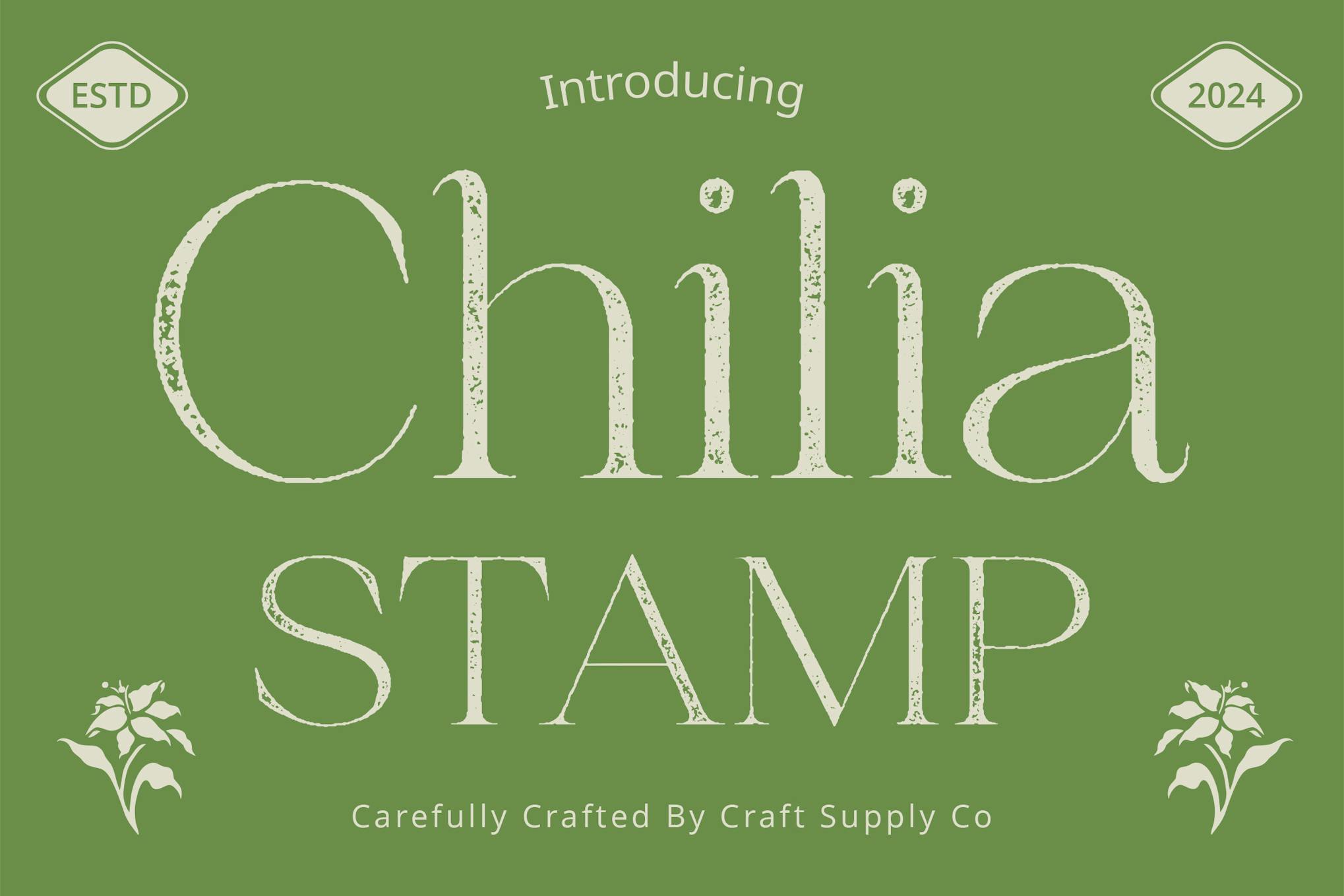
Chilia Stamp Font
The Chilia Stamp Font is perfect for vintage packaging design, rubber stamp effects, retro postal designs, distressed branding, industrial labeling, grunge poster artwork, weathered signage, and authentic stamp-style logos.
What makes Chilia Stamp Font so exciting is its authentic replication of traditional rubber stamp aesthetics that brings genuine industrial character and vintage appeal to modern design projects. This remarkable typeface captures the distinctive imperfections and ink variations found in real rubber stamp impressions, featuring uneven edges, natural wear patterns, and organic texture variations that create immediate visual authenticity. The font's carefully crafted distressed elements tell a story of use and history, making it perfect for brands that want to convey reliability, craftsmanship, and time-tested quality. Its distinctive stamp-like appearance instantly adds credibility and industrial charm to any design, transforming ordinary text into compelling visual communications that feel both authoritative and approachably human.
The Chilia Stamp Font family includes comprehensive variations that capture different aspects of stamp typography and wear patterns. The collection typically features multiple distress levels from lightly worn to heavily weathered, each maintaining the distinctive stamp characteristics. Many versions include alternative characters with varied ink coverage effects, decorative border elements inspired by postal design, and extended character sets supporting international applications for global branding and packaging projects.
The font's remarkable versatility works beautifully across both digital and print applications, from website headers to product packaging labels. Its carefully balanced distortion maintains excellent readability while preserving the distinctive stamp character that makes it so visually appealing and memorable to contemporary audiences.
Professional designers across industries trust this authentic stamp font for projects requiring genuine industrial character and vintage credibility. Whether developing brand identities for artisanal manufacturers, creating packaging design for craft products, or designing promotional materials for traditional businesses, this font delivers the perfect combination of authentic character and professional functionality.